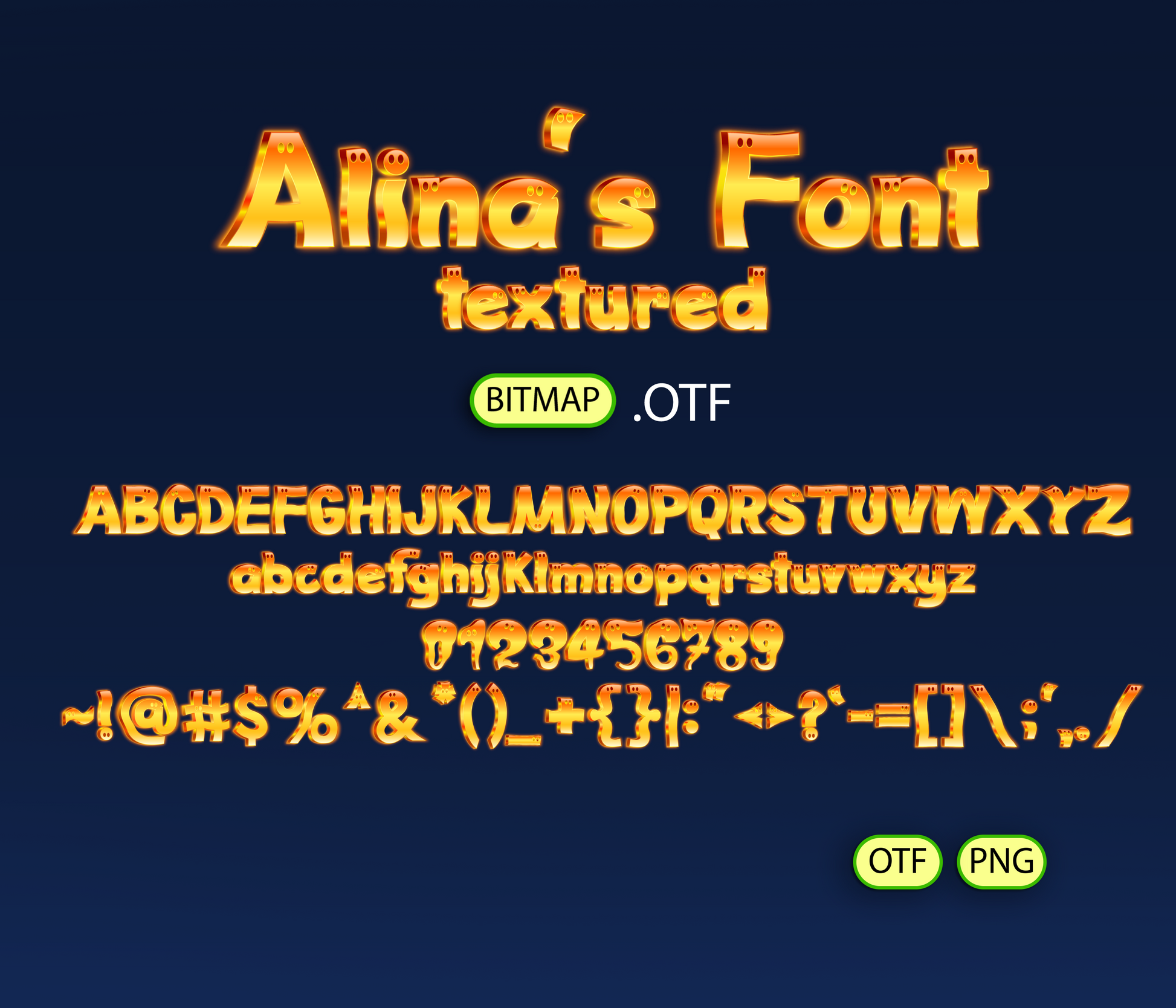
Poltergeist Pursuer's Font Textured
Poltergeist Pursuer's Typeface
Step into the eerie yet enchanting realm of a certain mustached ghost hunter with our Poltergeist Pursuer's Typeface. This font set embodies the spirit of spine-tingling mansion explorations with a whimsical touch, ideal for enthusiasts, artists, and innovators seeking to infuse their creations with a dash of friendly fright.
Our Poltergeist Pursuer's Typeface showcases quirky, slightly unsettling characters with a hint of console game nostalgia, blending spectral themes with lighthearted adventuring. Perfect for:
Our font celebrates the beloved world of a timid hero and his spectral escapades, empowering your designs with its charming and slightly spooky essence. Whether you're crafting fan tributes, designing themed events, or adding a touch of paranormal play to personal projects, this font conveys the spirit of ghost-catching adventures with a quirky, game-inspired flair.